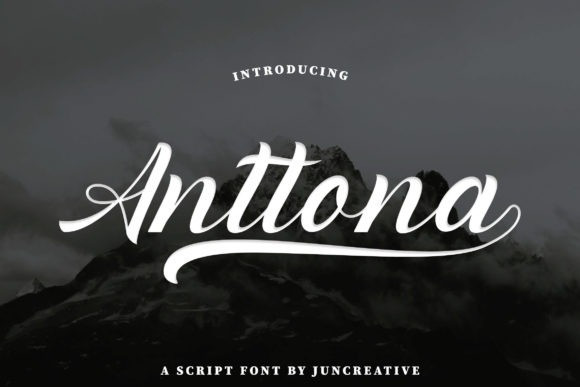
Anttona Font
Anttona Font is a nice script font with a vintage touch and a modern style combined to perfection! This typeface works really well for clothing, book titles, stationery designs, quotes, branding, logos, greeting cards, and more! This font is PUA encoded which means you can access all of the glyphs and swashes with ease!